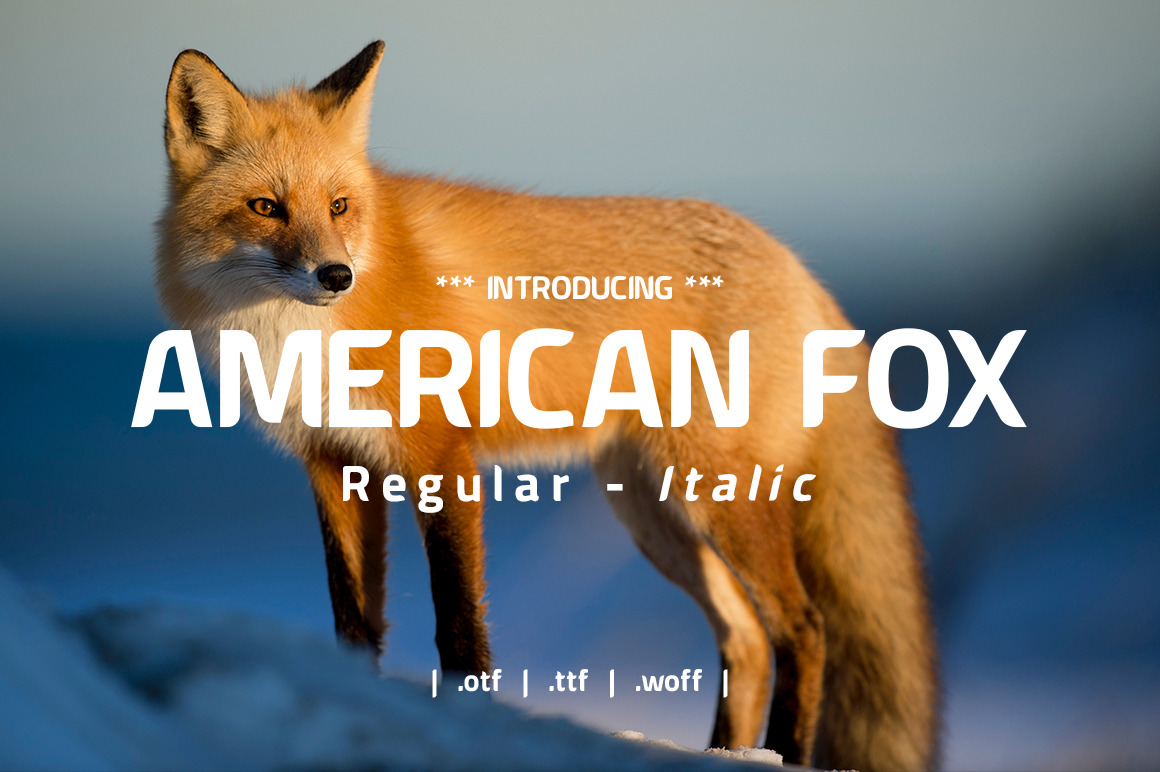
American Fox Font
American Fox font very suitable for poster, for logo, music cover, clothing, and many many cool design projects. Amarican Fox font is uppercase and lowercas. Numeric and international font.